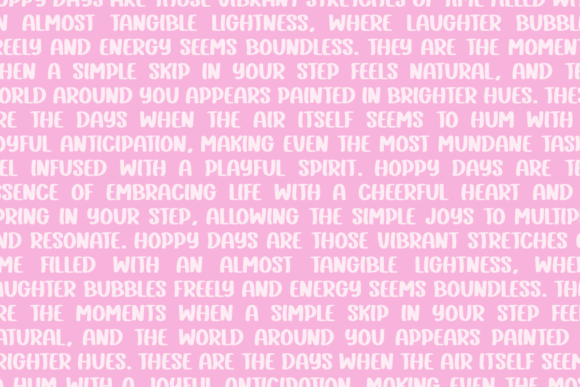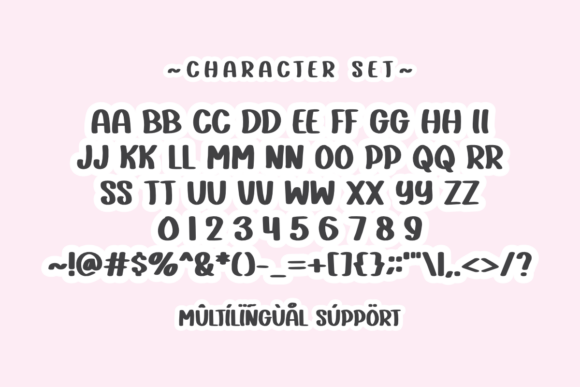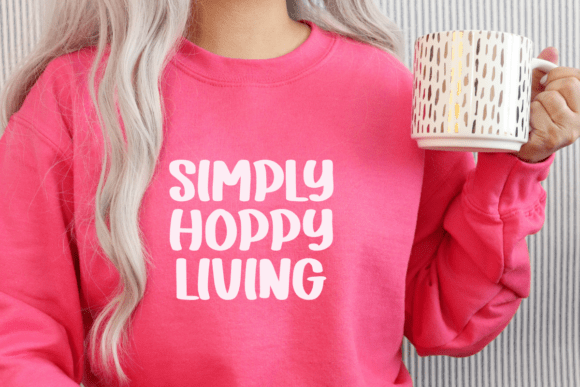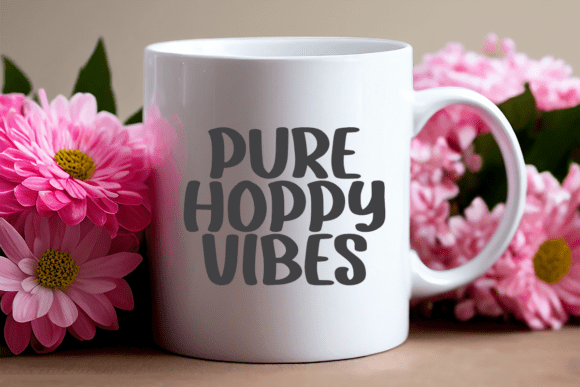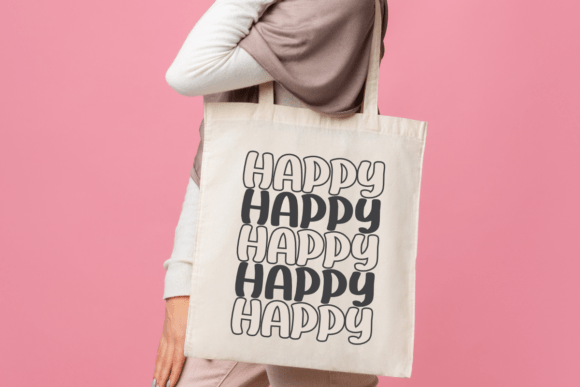
Bring a Smile to Your Designs with Hoppy Days Font
Have you ever spent hours pouring over a design, trying to find the perfect font to match the tone of your project? We’ve all been there. You want something that captures the essence of your creative vision, but nothing seems quite right. That’s where Hoppy Days Font comes in – a charming display font that’s guaranteed to put a smile on your face and add a touch of whimsy to your designs.
Designed with crafters and graphic designers in mind, Hoppy Days Font is the perfect addition to your creative toolkit. With its playful, friendly feel, this typeface is ideal for adding a pop of personality to your projects, from greeting cards and party invitations to social media graphics and advertisements.
Hoppy Days Font Key Features
- Unique Characteristics: This font features a unique, playful, and whimsical design that is perfect for creating eye-catching headlines and titles. The font’s irregularities and quirks add a touch of personality to any design.
- Font Style: The font comes in a single style, but it can be easily customized using font editing software to create different font weights and styles.
Designer Review: Hoppy Days Font
Overall, I found the Hoppy Days Font to be a playful and eye-catching choice for any project. It’s perfect for capturing the carefree, summery vibe of a craft beer brand or a fun outdoor event. ✨
Here are some of the things that stood out to me:
- Unique Character Set: The font comes with a range of quirky characters, including emojis, which add to its playful personality.
- Clear Typography: Despite its casual feel, the font is well-designed and easy to read, even at smaller sizes.
- Limited Language Support: The font only supports a limited range of languages, which may be a problem for projects that require multi-language support.
- No Stylistic Alternates: The font doesn’t come with any stylistic alternates or swashes, which may limit its versatility.
- Not Suitable for Body Text: Due to its playful, informal nature, the font is not ideal for use as body text.
- Font Weight Limited: Only a few font weights are available in the font set. This can limit the ability to create a balanced and visually appealing layout.
Overall, the Hoppy Days Font is a fun and playful choice, but it’s not without its limitations. While it’s perfect for a summer-themed project or a craft beer brand, it may not be suitable for more formal or complex projects.
The Hoppy Days Font is perfect for:
– Brewery logos and branding
– Food and beverage packaging
– Event invitations and signage
– Social media graphics and advertising